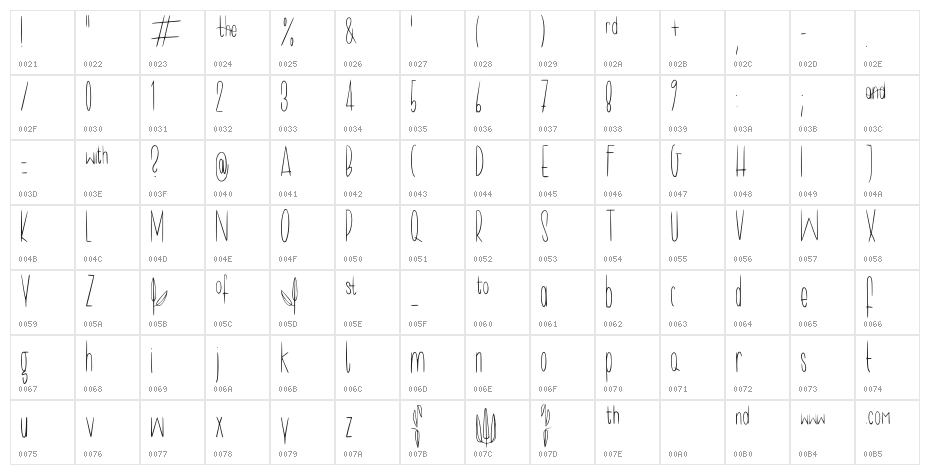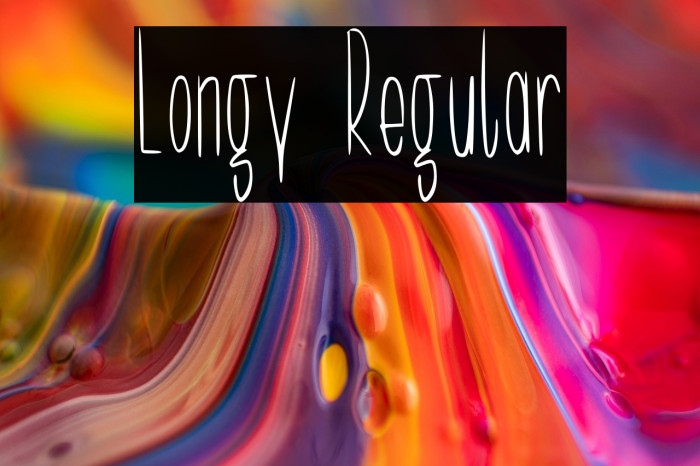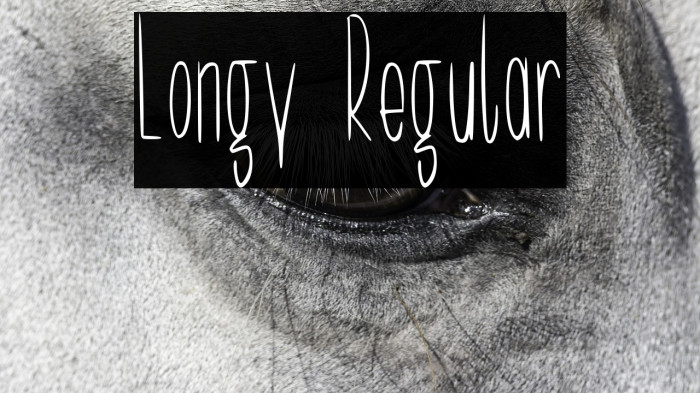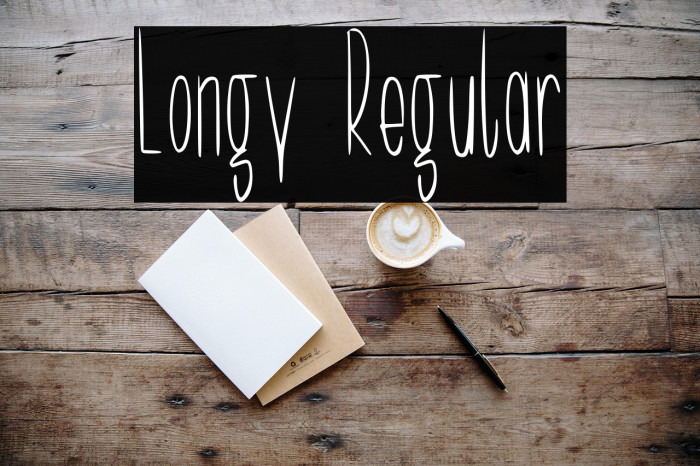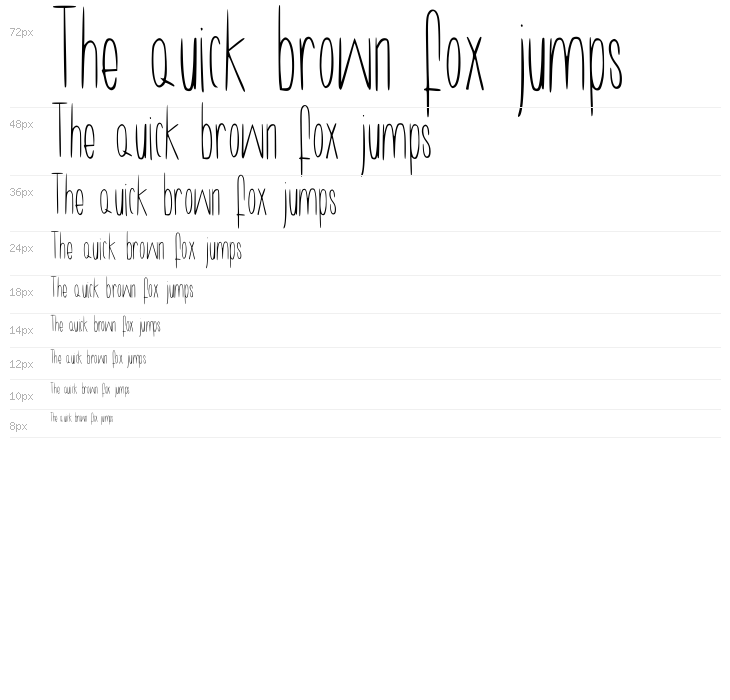
Longy Regular Font
Longy Regular Description
A tall, narrow handwritten font with a playful and casual style, featuring elongated characters and a unique, quirky appearance.
| Proposed Projects | Greeting cards, posters, informal branding. |